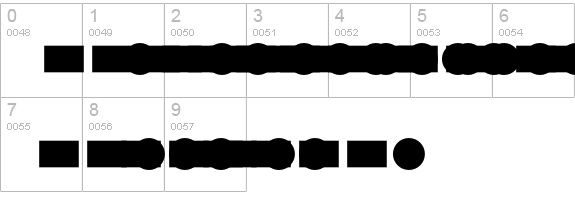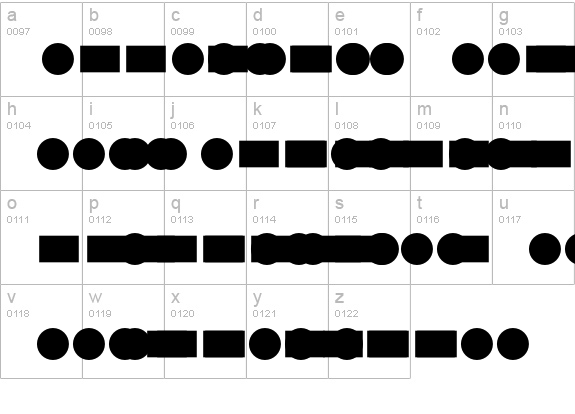
Introducing Morsig font, a sleek and modern typeface that exudes sophistication and elegance. With its clean lines and stylish curves, Morsig is perfect for adding a touch of class to your design projects. Whether you're creating a logo, website, or social media graphics, this versatile font will elevate your work to the next level. What's even better? Morsig font is completely free for personal and commercial use. You can easily download it at FontsMarket.com and start using it in your projects right away. Don't miss out on this fantastic opportunity to enhance your designs with the timeless beauty of Morsig font.